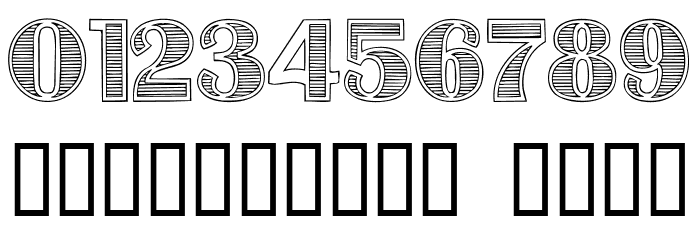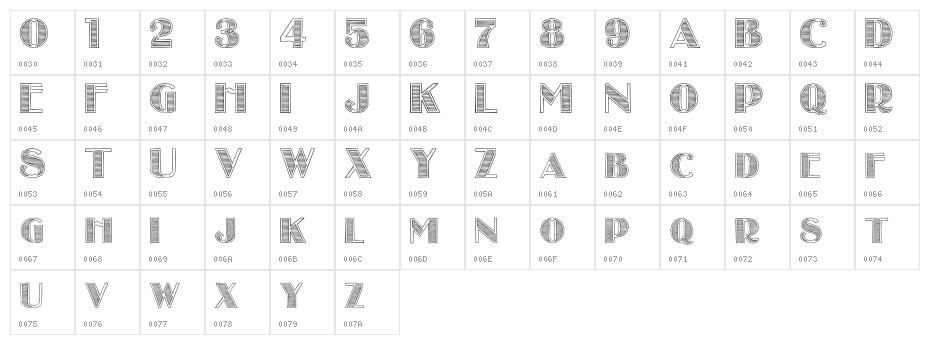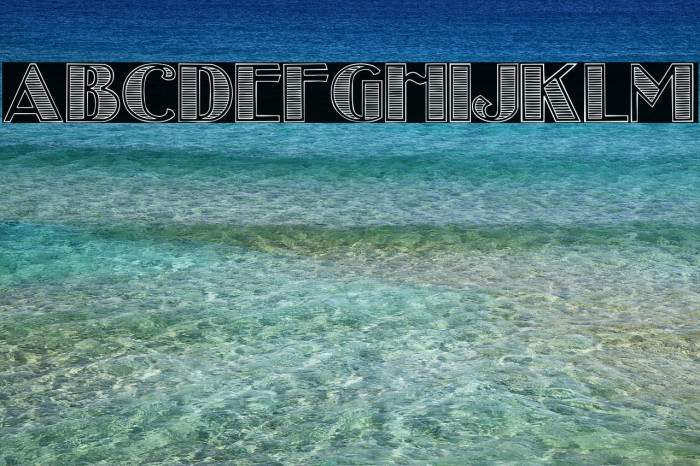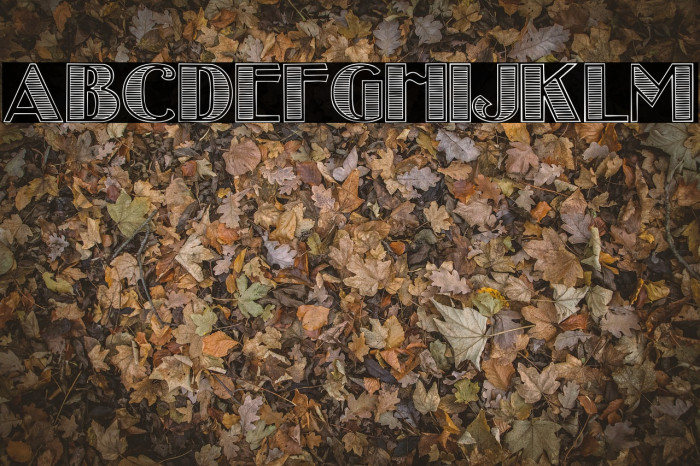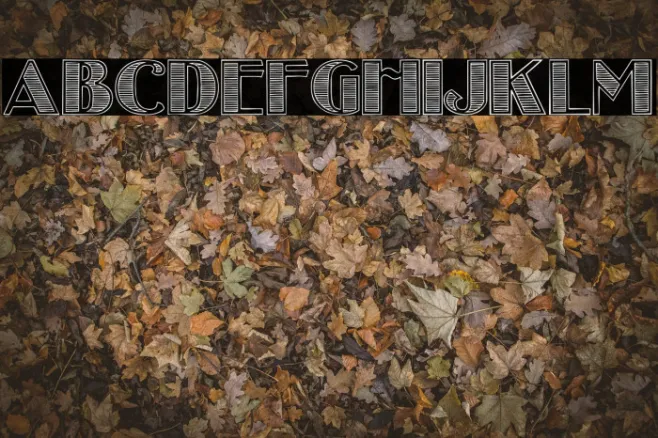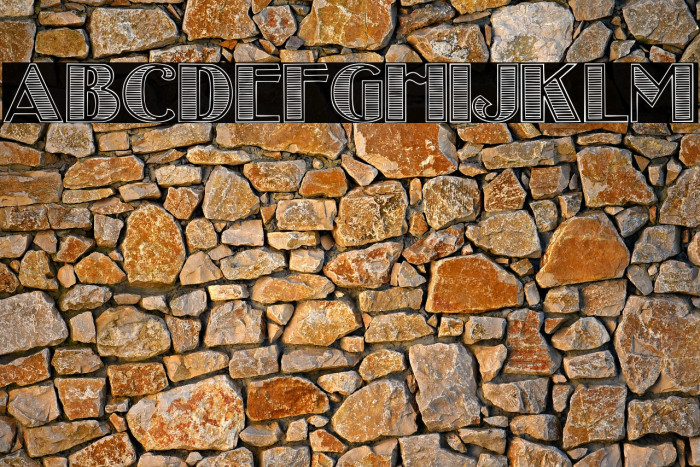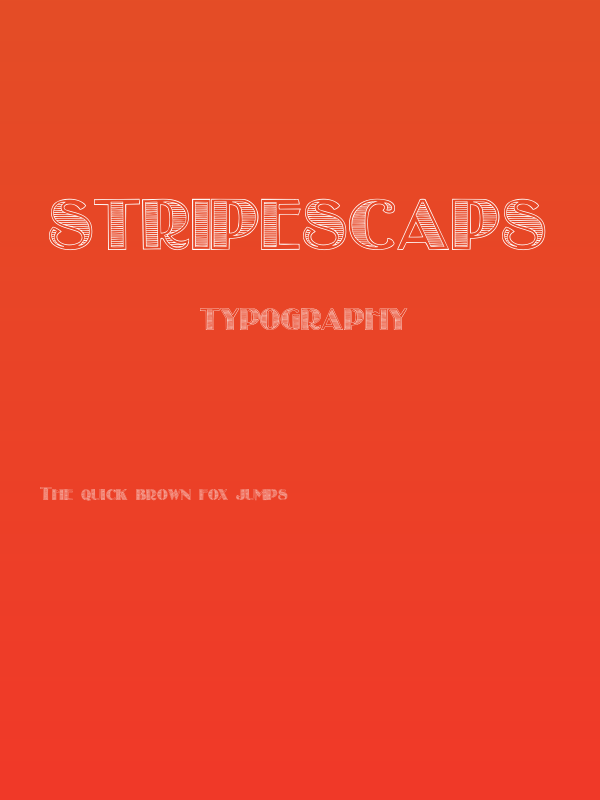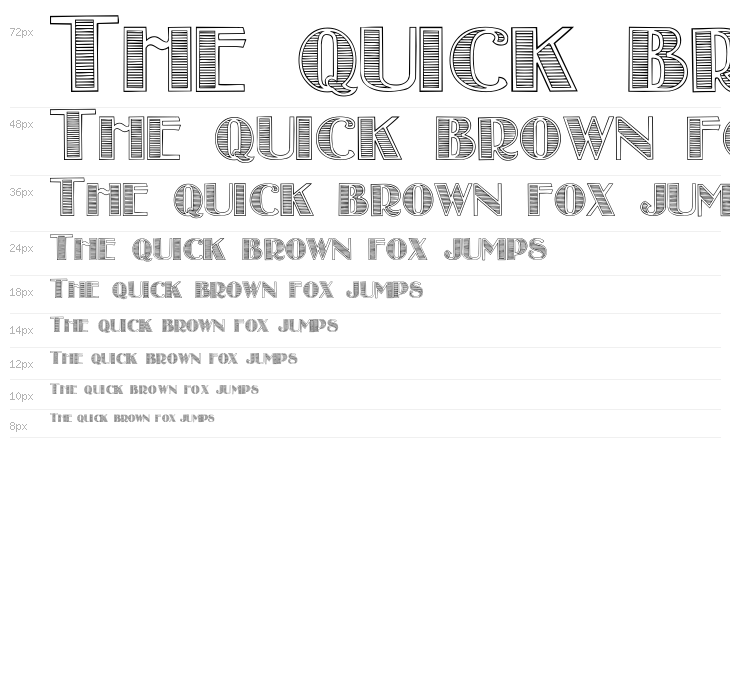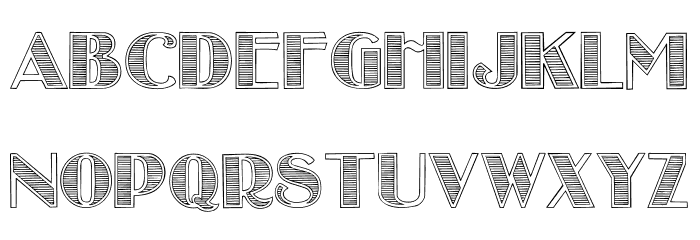
StripesCaps Font
StripesCaps Description
This font features a unique striped pattern within each character, giving it a bold and eye-catching appearance. The uppercase letters are designed with a consistent width and height, maintaining a uniform look across the alphabet. The numbers follow the same striped style, ensuring cohesion throughout the typeface. The special characters are also included, each with the same distinctive striped design. This font's decorative nature makes it ideal for projects that require a standout typeface.
| Proposed Projects | Perfect for posters, branding, headlines, and any design that requires a bold, decorative touch. |